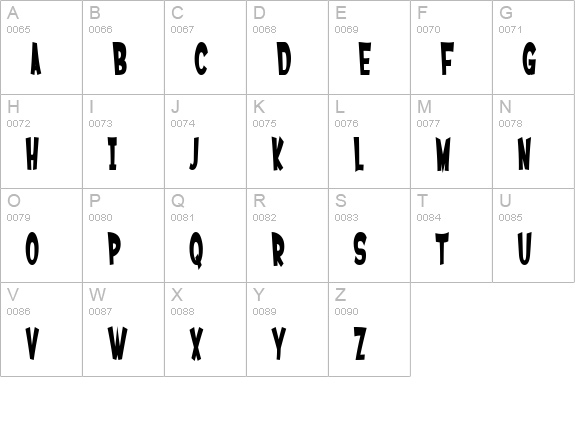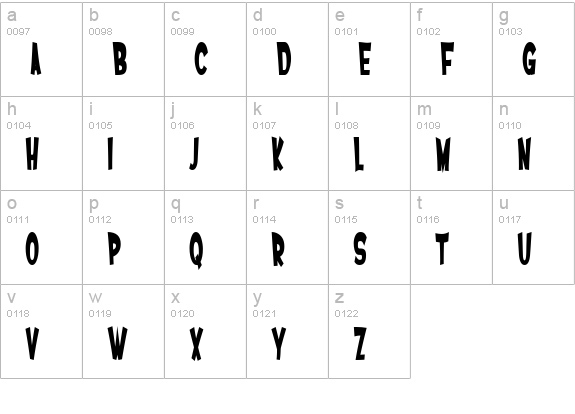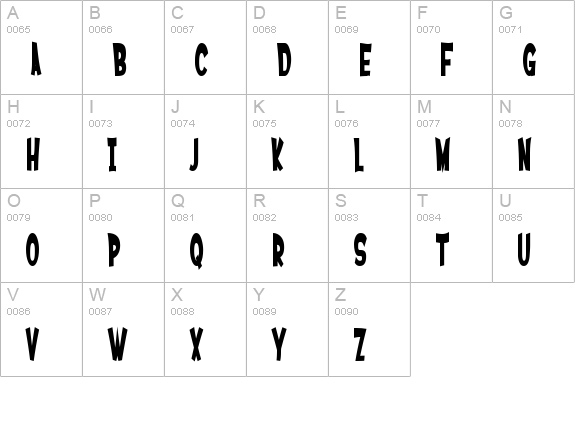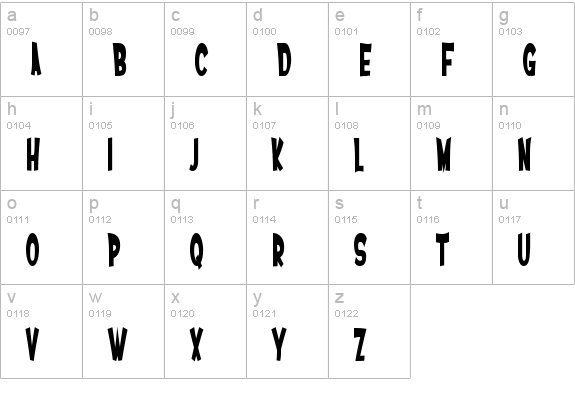
SF Ferretopia Bold Font Details
SF Ferretopia Bold is a strong, high-contrast variant in the SF typeface family \xE2\x80\x94 well suited to headlines, attention-grabbing titles, and strong calls-to-action.
SF Ferretopia Bold font is a unique and eye-catching typeface designed to captivate and inspire. With its bold and confident strokes, this font exudes a sense of modernity and sophistication. Its distinctive character shapes and attention to detail make it perfect for a variety of design projects, from logos and headlines to posters and packaging. But what truly sets SF Ferretopia Bold font apart is its accessibility. This font is not only visually stunning, but it is also freely available to download at FontsMarket.com. Yes, you read that right - it's free! Now you can bring a touch of elegance and professionalism to your designs without breaking the bank. Whether you are a professional designer or an aspiring creative, SF Ferretopia Bold font offers endless possibilities for your projects. Its versatility allows you to experiment with various layouts and design elements, ensuring that your work stands out from the crowd. Plus, its clean and legible letterforms make it easy to read, even at smaller sizes. So why wait? Enhance your designs with the striking presence of SF Ferretopia Bold font. Download it for free today at FontsMarket.com and unlock a world of creative potential. Unleash your imagination and let this font elevate your designs to new heights.